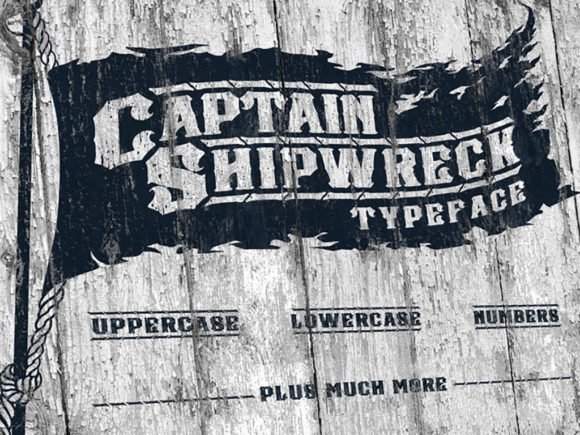
Adding a Touch of Adventure to Your Designs
As a designer, there’s nothing quite like the thrill of stumbling upon a new font that sparks your creativity. It’s that moment when the perfect combination of style and functionality comes together, and you know you’ve found something special. For me, that moment happened when I discovered the Captain Shipwreck Font.
With its bold, vintage style and intricate details, Captain Shipwreck Font is the perfect addition to any label, poster, or branding design. Its unique character adds a touch of adventure and nostalgia, making it stand out from the crowd. Whether you’re designing a travel brochure, a nautical-themed poster, or a vintage-inspired logo, this font is sure to bring your design to life.
For designers, Captain Shipwreck Font is a valuable asset that can elevate any project. Its versatility and timeless charm make it a great choice for a wide range of applications, from packaging to advertising. So, if you’re looking to add a touch of excitement to your designs, be sure to give Captain Shipwreck Font a try!
Captain Shipwreck Font Key Features
- Unique Characteristics: Captain Shipwreck Font features a distressed, vintage aesthetic with a pirate-themed twist, making it perfect for designs that require a sense of adventure and nostalgia.
- Font Style: Captain Shipwreck Font is available in regular and bold weights, offering flexibility for designers to create a range of visual effects and emphasis.
Captain Shipwreck Font Review
Overall, I’d say the Captain Shipwreck Font is a fun, adventurous font that can add a nautical vibe to your design projects. ✨ Here are some things that work well:
- Nautical theme: The font’s distressed, weathered look captures the essence of a shipwreck perfectly.
- Variety of characters: The font includes a range of characters, from letters and numbers to symbols and punctuation.
- Legibility: Despite its distressed appearance, the font is surprisingly easy to read, making it a great choice for body text or headings.
- Limited expressiveness: While the font is great for a nautical theme, it may not be the best choice for other types of projects.
- No bold or italic styles: If you need to emphasize certain text, you may need to use a separate font or get creative with bolding or italicizing individual characters.
- Distressed look may not be to everyone’s taste: Some designers may find the font’s weathered appearance too rough or unpolished.
Overall, I’d recommend the Captain Shipwreck Font for designers looking to add a unique, adventurous touch to their projects. Just be aware of its limitations and use it judiciously.
Tips for Getting the Most Out of Captain Shipwreck Font
For best results, pair Captain Shipwreck Font with bold, contrasting colors to create a striking visual effect. Experiment with different font sizes and styles to add depth and interest to your design. Consider using Captain Shipwreck Font for headings and titles to create a sense of drama and emphasis.
Captain Shipwreck Font is ideal for pirate-themed designs, nautical branding, and adventure-inspired projects. It’s also a great choice for creating a sense of drama and excitement in your designs, making it perfect for movie posters, video game titles, and other attention-grabbing applications.